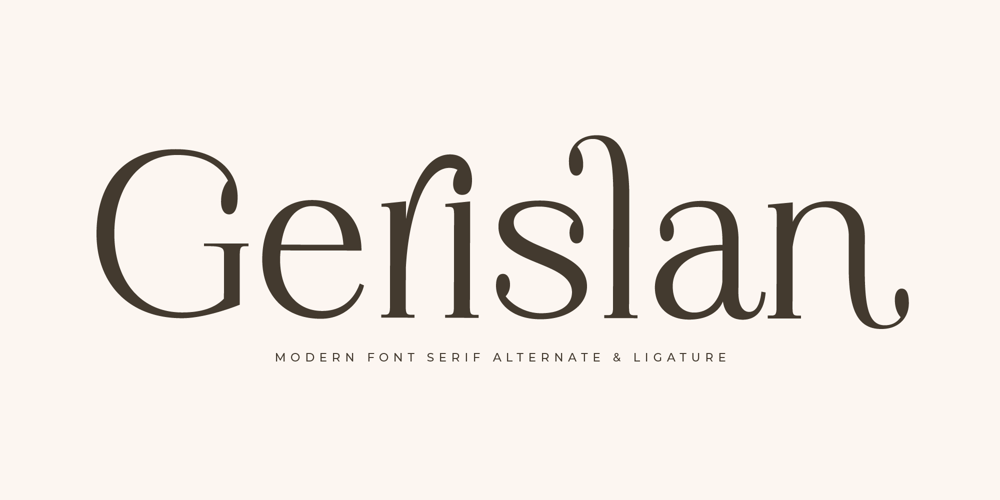
Gerislan Font Family was designed by Heru Utama Putra and published by Letterena Studios. Gerislan contains 2 styles and family package options. Proudly present Gerislan Typeface , created by Storytype,A serif modern and classic typeface that has own unique style & modern look.This typeface is perfect for an elegant & luxury logo, book or movie title design, fashion brand, magazine, clothes, lettering, quotes, and so much more.